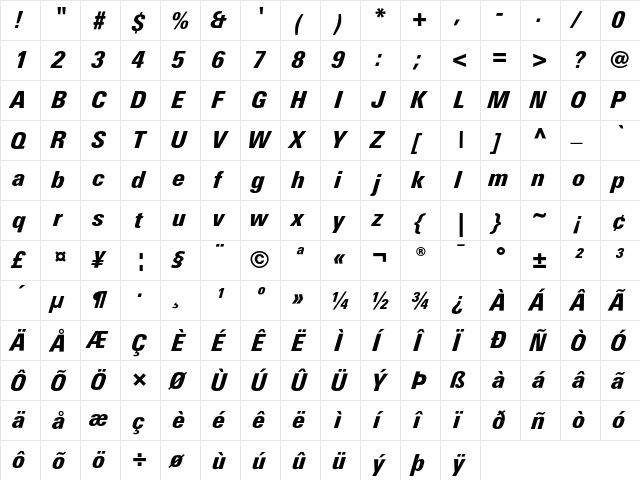
LinotypeUnivers CondBlackItalic
Design Context for LinotypeUnivers Typeface
LinotypeUnivers is a composed and adaptable typeface that performs quietly and consistently across a wide range of design contexts. The dynamic lean of this cut emphasises speed and emphasis in any layout. Its narrow stance lets it pack a punch even in space-constrained designs.
Pro Tip: Use LinotypeUnivers for emphasis, pull quotes, and subheadings where its slanted energy can add rhythm to the layout.